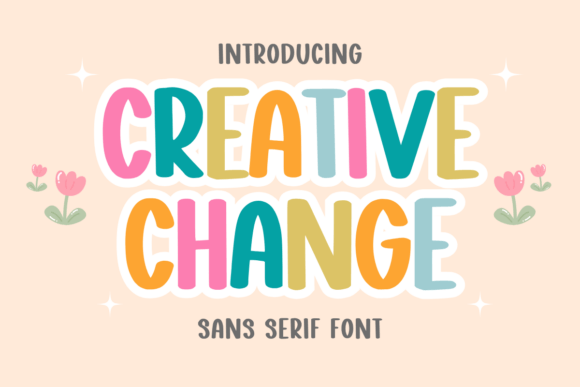
Unlocking Creative Potential: The Delightful World of Creative Change Font
Are you tired of using the same old fonts for your everyday writing needs? Look no further than Creative Change, a charming handwritten sans serif font that is sure to bring a touch of whimsy to your memos, journals, notes, and planners. This delightful font is perfect for anyone looking to add a dash of fun and personality to their daily organization, and its versatility makes it an excellent choice for a wide range of creative projects.
What Makes Creative Change Font So Special?
Creative Change font is a masterfully crafted handwritten sans serif font that boasts a unique and playful charm. Its natural brush strokes give it a personal and organic feel, making it perfect for a variety of applications, from scrapbooking to journaling. This font is designed to bring a touch of whimsy to your everyday jottings, infusing them with an element of fun and creativity.
- Playful and Quirky: Creative Change font is the perfect choice for anyone looking to add a dash of personality to their writing.
- Versatile: This font is suitable for a wide range of creative projects, from digital planners to scrapbooking.
- Easy to Read: Despite its playful nature, Creative Change font is easy to read, making it perfect for everyday writing.
Endless Possibilities: How to Use Creative Change Font
Creative Change font is an incredibly versatile font that can be used in a variety of contexts. Here are just a few ideas to get you started:
- Digital and Conventional Planners: Add a touch of personality to your daily organization with Creative Change font.
- Teachers’ Notes: Make your notes stand out with this playful and easy-to-read font.
- KDP Interiors: Bring life to your KDP interiors with Creative Change font, perfect for journals, notebooks, and more.
- Greeting Cards and Invitations: Add a touch of whimsy to your greeting cards and invitations with this delightful font.
- Scrapbooking: Use Creative Change font to add a personal touch to your scrapbooking projects.
Creating Low-Content Pieces with Creative Change Font
Creative Change font is a dream tool for creating low-content pieces, such as notebooks, notepads, and paper sheets. Its playful and quirky nature makes it perfect for:
- Notebooks: Add a touch of personality to your notebooks with Creative Change font.
- Notepads: Make your notepads stand out with this delightful font.
- Paper Sheets: Use Creative Change font to add a touch of whimsy to your paper sheets.
Effortlessly Plan with Style: Creative Change Font for Planners
Creative Change font is the perfect choice for planners, whether you’re creating a charmingly original weekly planner or a structured monthly planner. Its versatility makes it easy to use in a variety of planner types, including:
- Daily Planner Journals: Add a touch of personality to your daily planner journals with Creative Change font.
- KDP Interiors: Use Creative Change font to create eye-catching KDP interiors for your planners.
- KDP Templates: Make your KDP templates stand out with this delightful font.
Discover the Transformative Power of Creative Change Font
Creative Change font has the power to transform your creative projects, bringing a touch of whimsy and personality to your everyday writing. With its natural brush strokes and playful charm, this font is sure to:
- Unlock Your Creativity: Let your creativity flow boundlessly with Creative Change font.
- Add a Touch of Personality: Bring a dash of personality to your writing with this delightful font.
- Make Your Projects Stand Out: Use Creative Change font to make your projects stand out from the crowd.
In conclusion, Creative Change font is a delightful and versatile font that is sure to bring a touch of whimsy and personality to your everyday writing. With its natural brush strokes and playful charm, this font is perfect for a wide range of creative projects, from digital planners to scrapbooking. Whether you’re looking to add a dash of fun to your daily organization or create eye-catching low-content pieces, Creative Change font is the perfect choice.